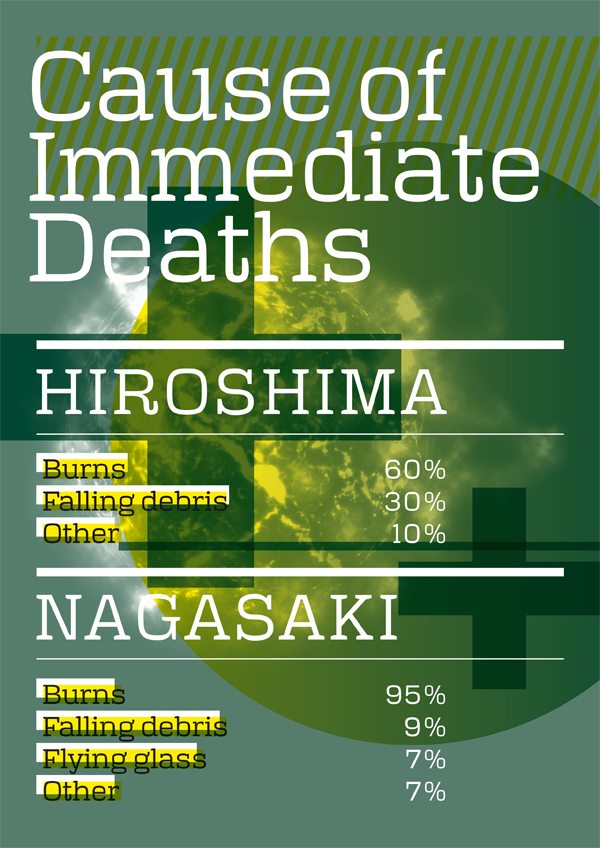
Typeface Polaris
Polaris uses historical references as inspiration: slab-serif fonts in a turn-of-the-century style. In combination with modern elements and a technical-like drawing style the font develops an unusual, cool retro charm. Polaris comes with an extensive character set to support all central-european languages. Download the complete opentype font at www.floodfonts.com